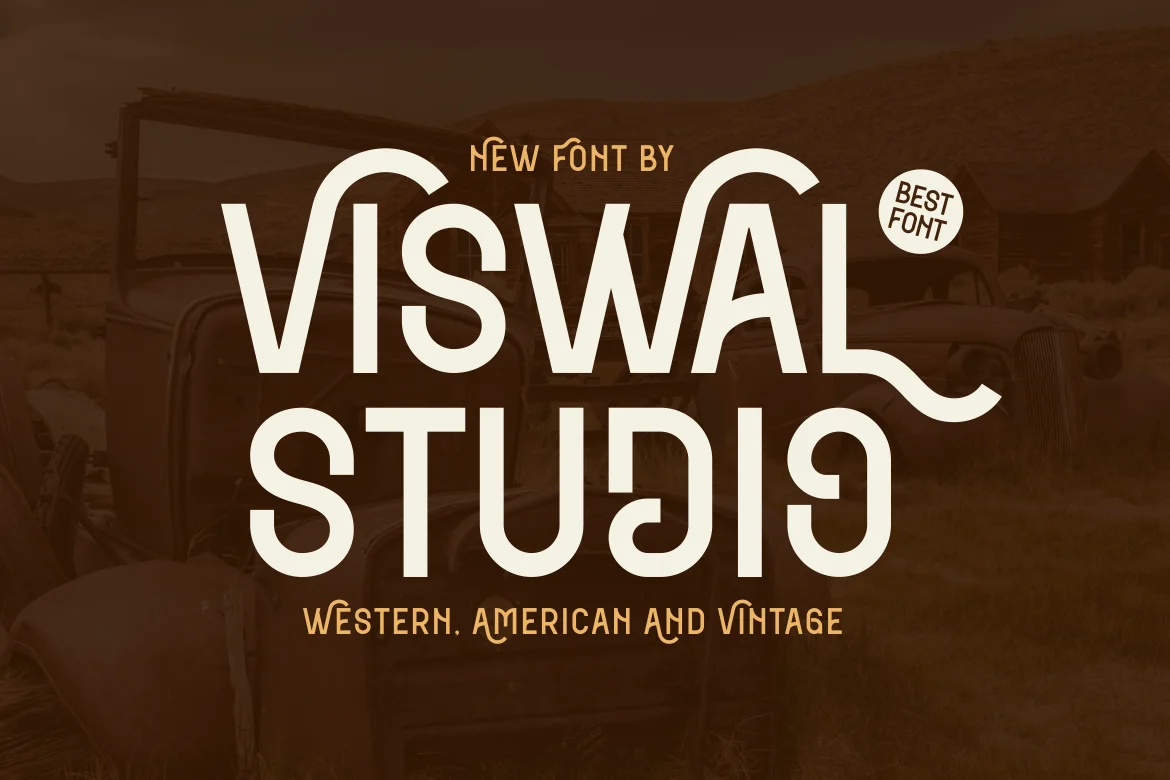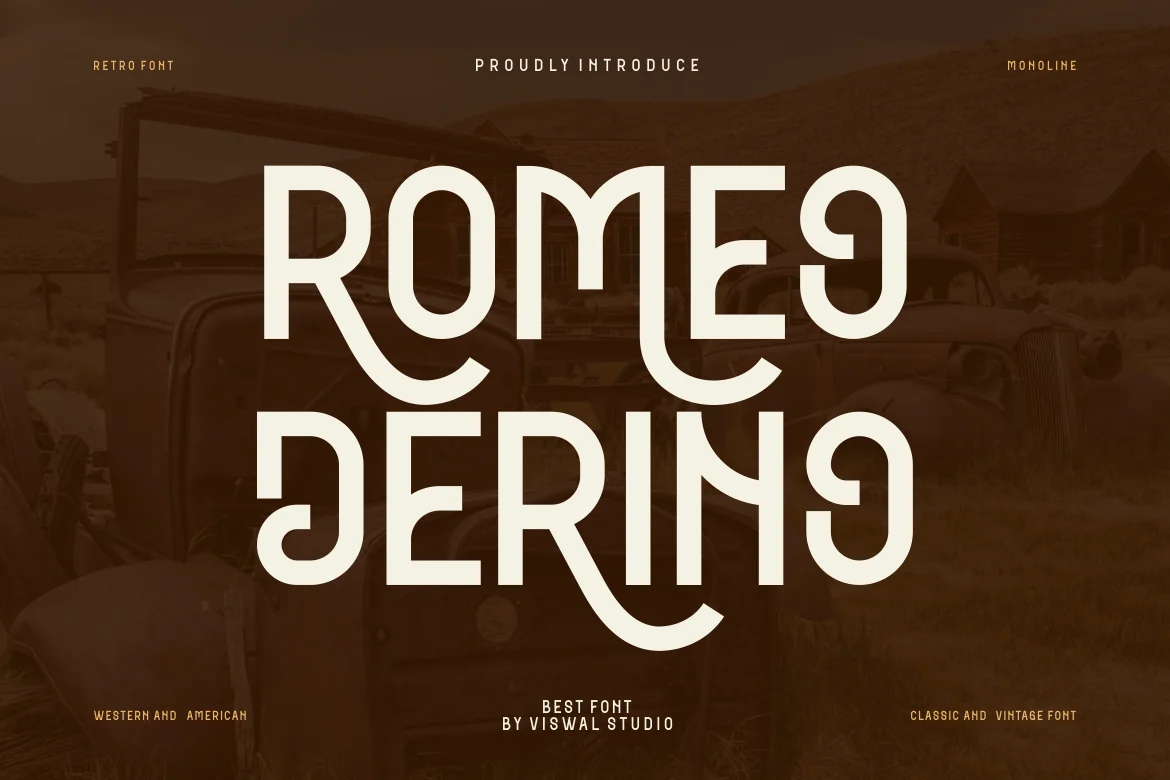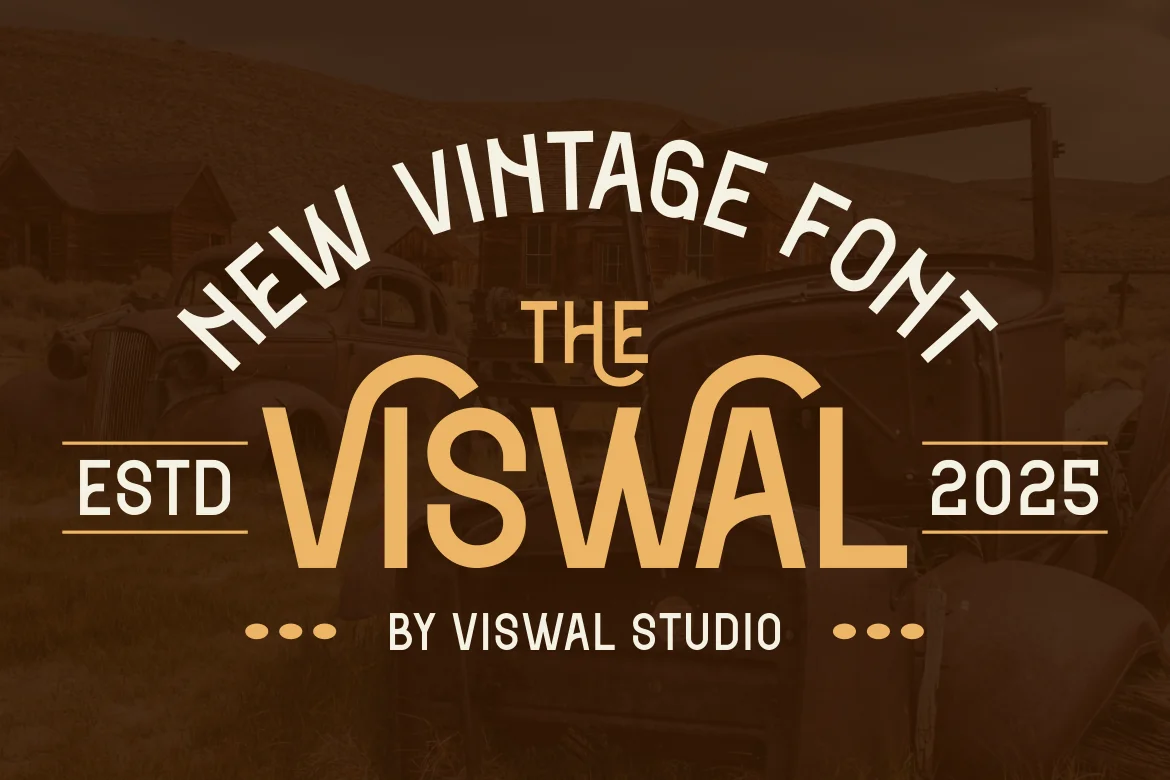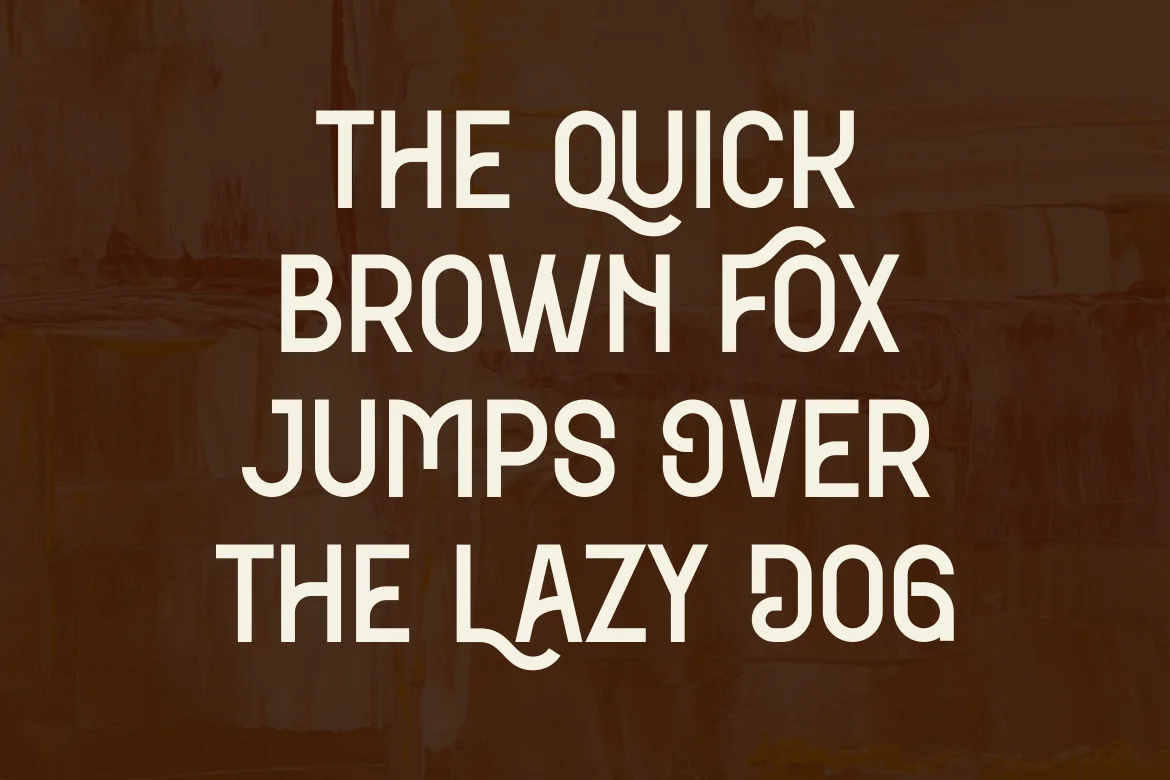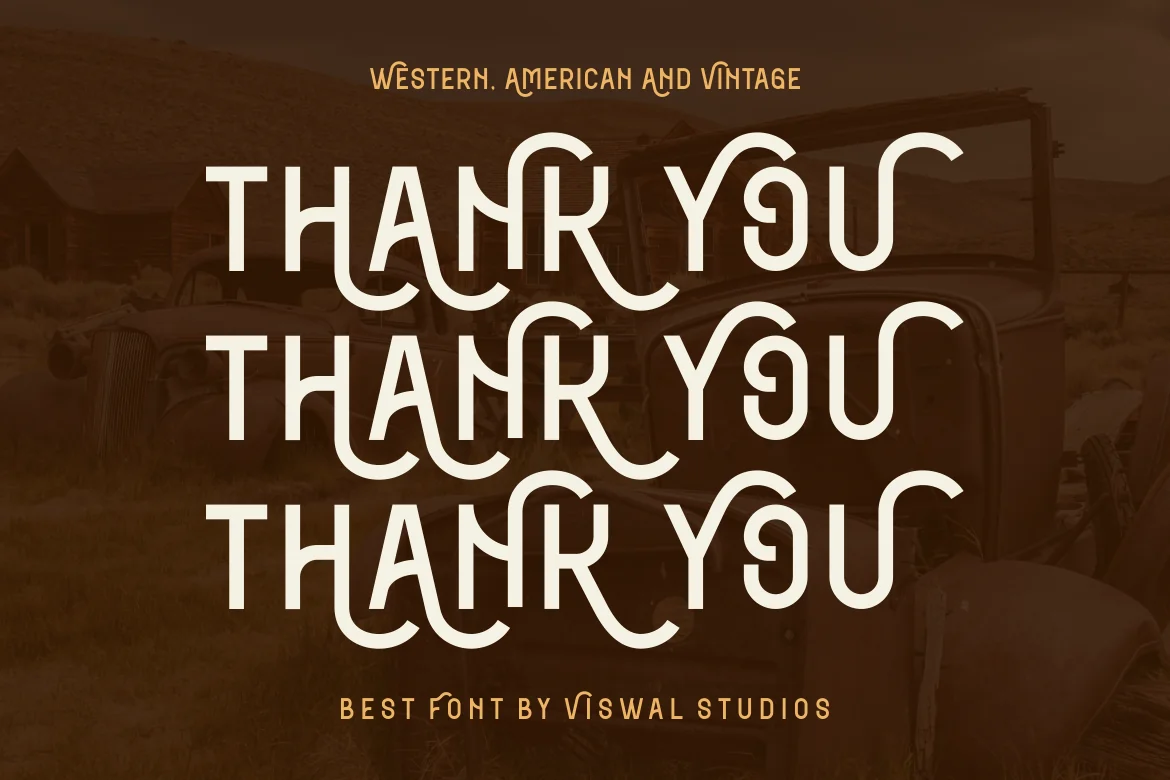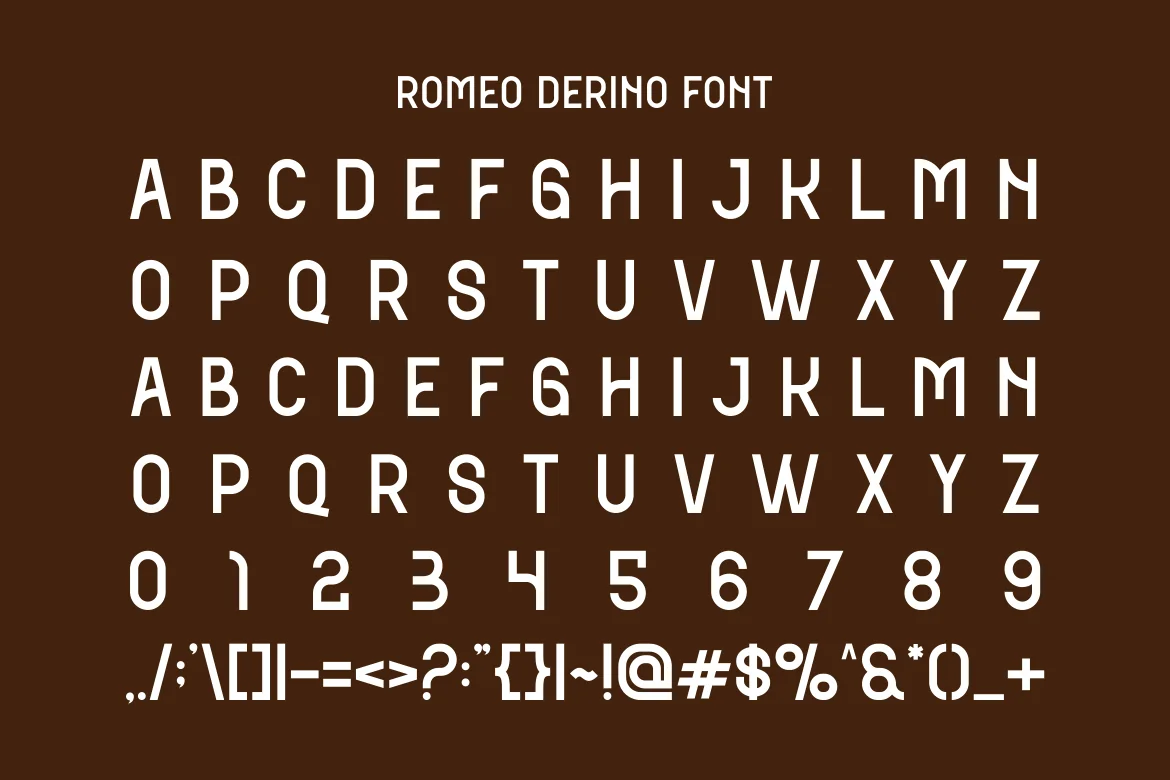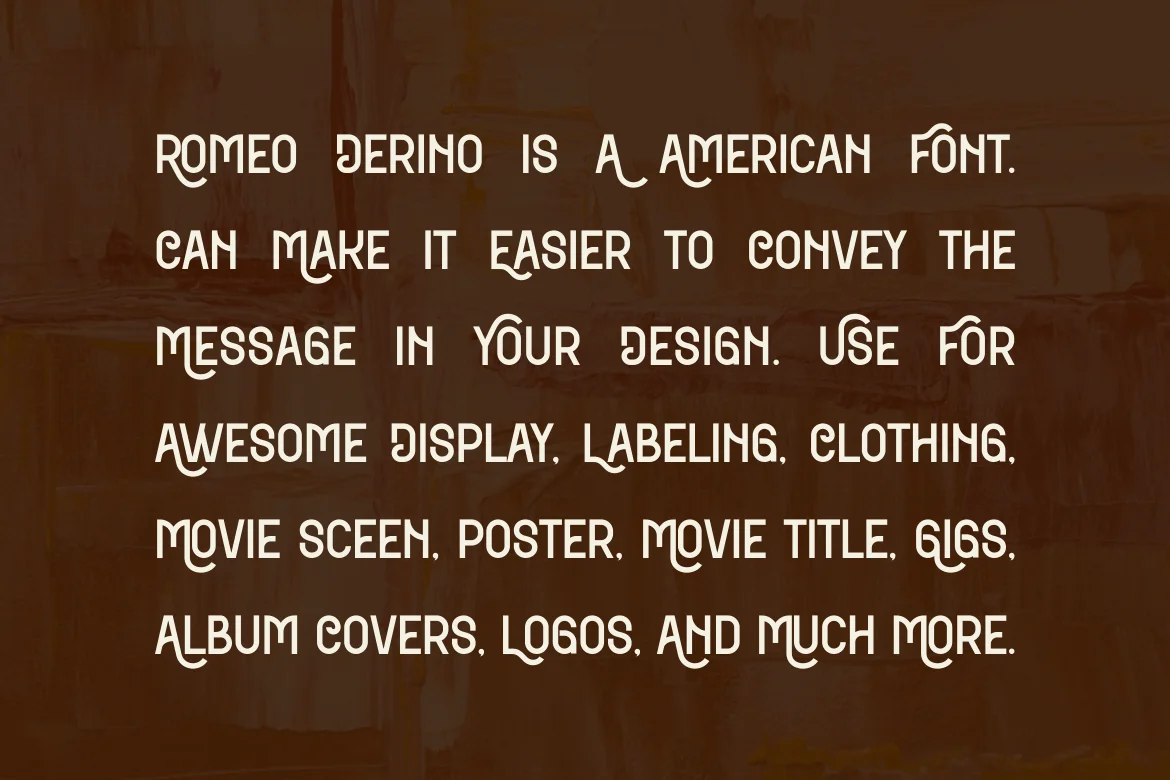
Romeo Derino – Vintage & Western Font
Presenting Romeo Derino – Font is suitable for badge, labels, logo, branding, magazine, poster and etc. Our fonts have Uppercase & Lowercase, Numeral & Punctuation, Multilingual support and Opentype Features. For Amazing designs you can mix with other fonts as a complement.